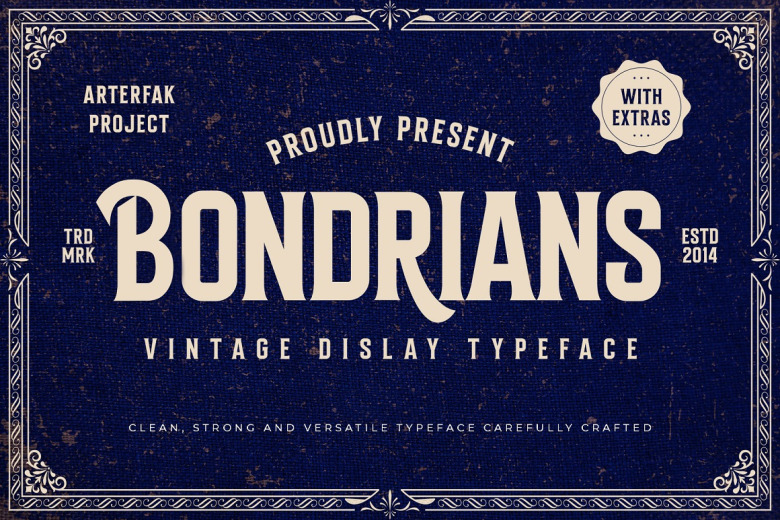
Bondrians Font
Bondrians Font is an all-caps display typeface, which simulates security labels and old school logo style. Use the heavy letterform for the displays. Bondrians is a multifunctional typeface that You can use for any traditional concepts: look, retro, old school and Victorian style. Bondrians has neat shapes and graceful serifs.
With many alternates and ligatures that you can combine, will make your design projects more easily also with extra ornament graphics. bondrians is suitable for headline, label, logo, apparel, letterhead, logotype, branding, poster ,sticker ,sotorefront, signboard and may other your great project.
Bondrians Display Font